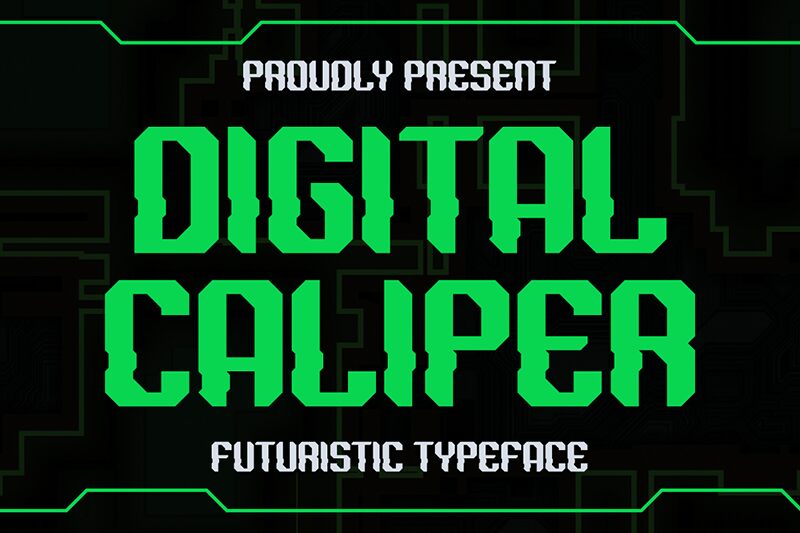
Digital Caliper font family by Gilang Ternadho consists of 2 font styles whose techno style brings forward-and-center the futuristic elegance of geometric shapes. At first glance, the free font family gives off an angular look while closer inspection reveals just how stylized the characters truly are. Each character is a work of art with a strong presence, technological vibe, and modern appeal waiting to please the eyes of each viewer.
Use Digital Caliper font on designs where a digital aesthetic is required. These include impactful posters, social media posts, or flyers for technology-related projects. The font can be streamlined and will work beautifully on UX/UI designs such as apps, websites, and games.